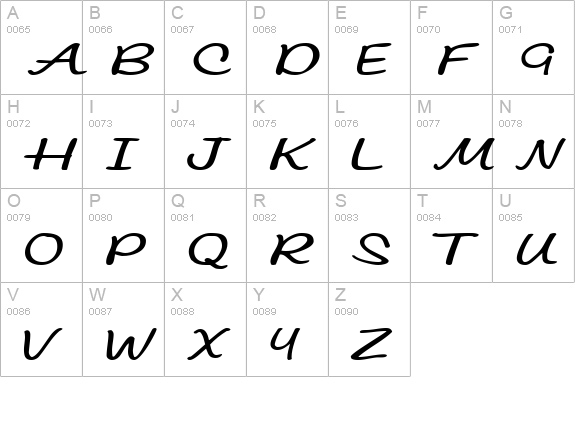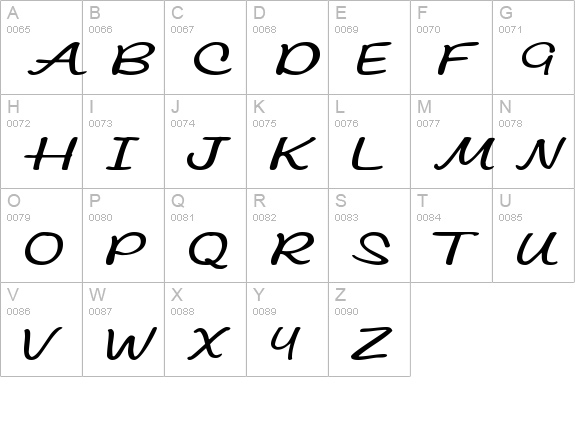
PompanoScriptSSK is a beautifully crafted font that combines elegance with a touch of playfulness. Its flowing curves and stylish letterforms make it perfect for a wide range of design projects, from invitations and greeting cards to branding and packaging. This versatile font exudes sophistication and charm, making it ideal for adding a touch of class to any project. The best part is that PompanoScriptSSK is available for free download at FontsMarket.com. This means you can easily access this stunning font without any cost, making it a valuable addition to your design toolkit. Whether you're a seasoned designer or just starting out, PompanoScriptSSK is sure to elevate your projects with its unique style and flair. Download it today and unleash your creativity with this fabulous font!